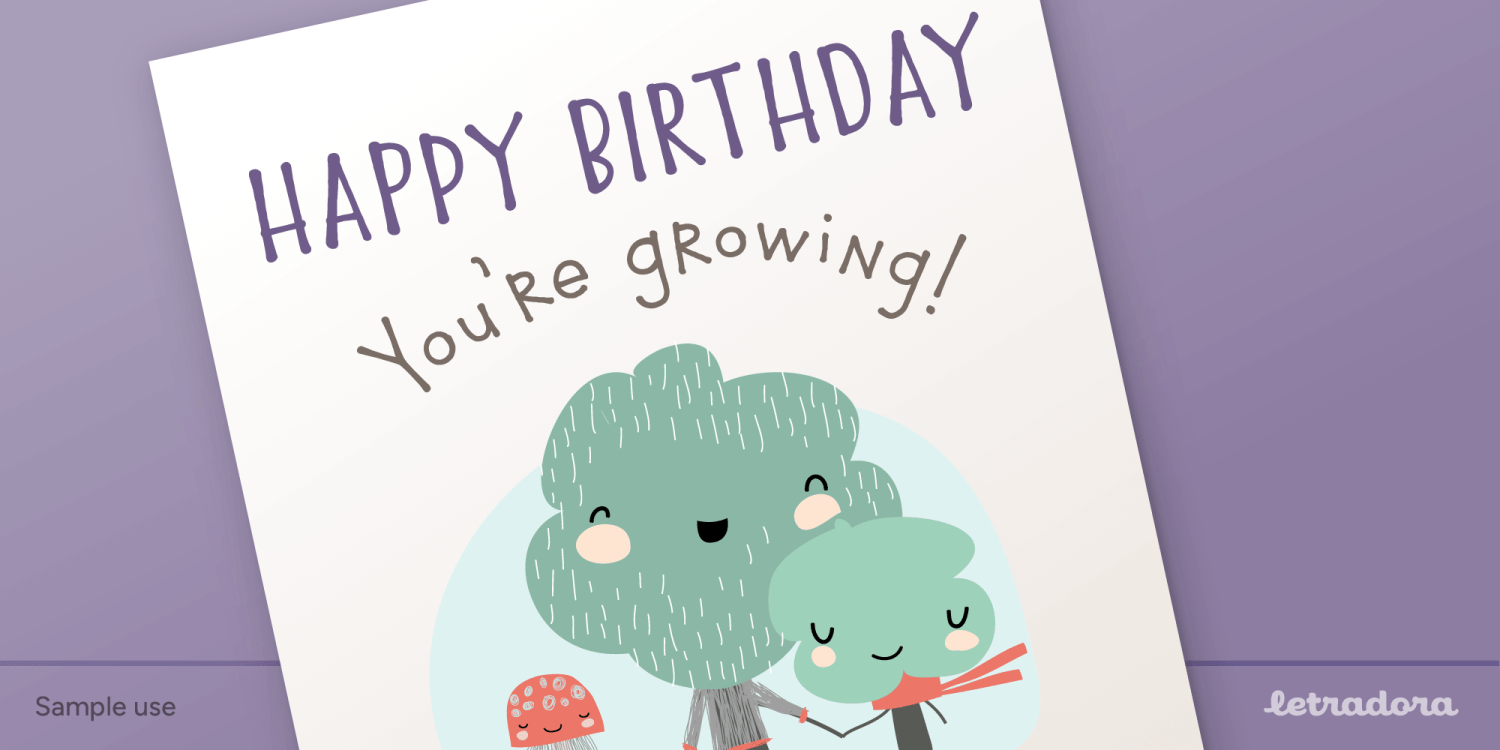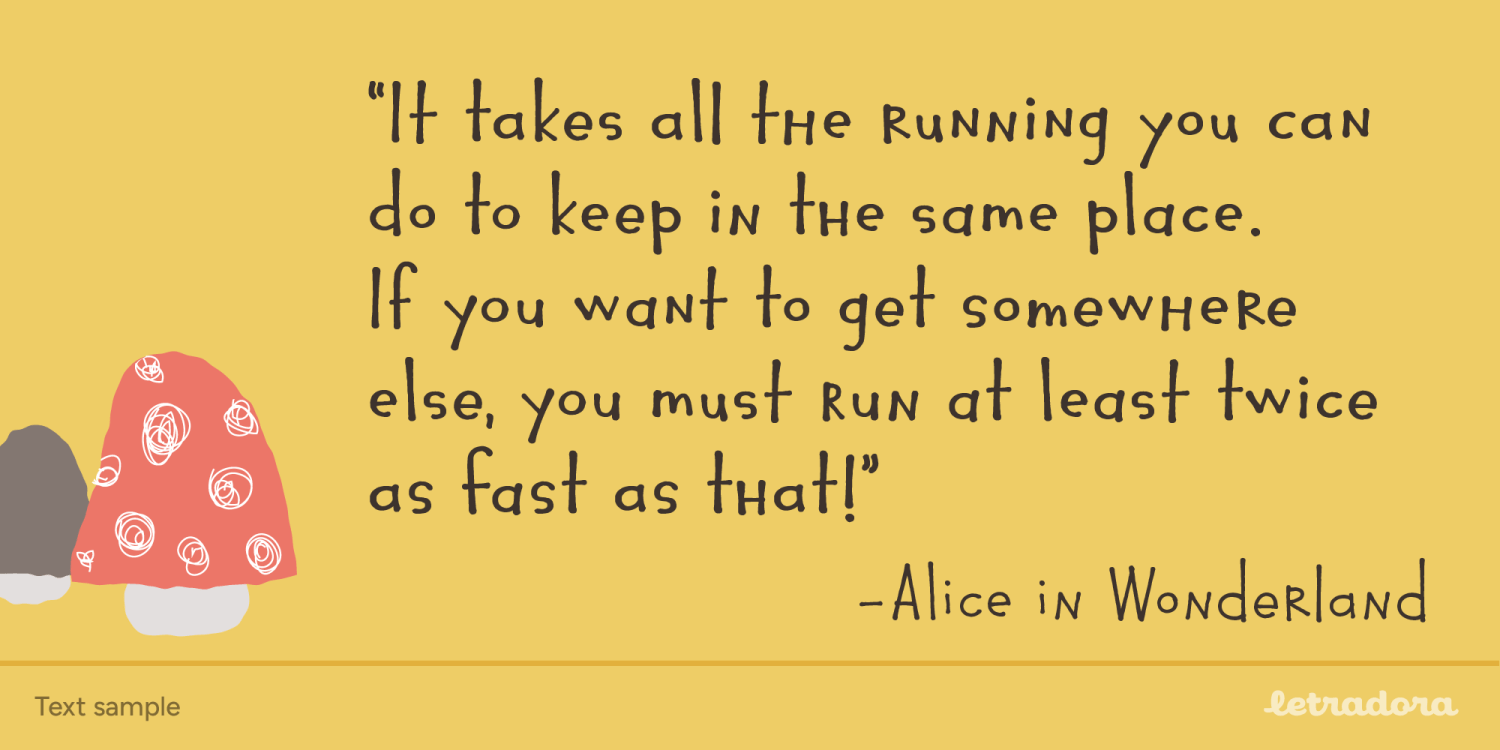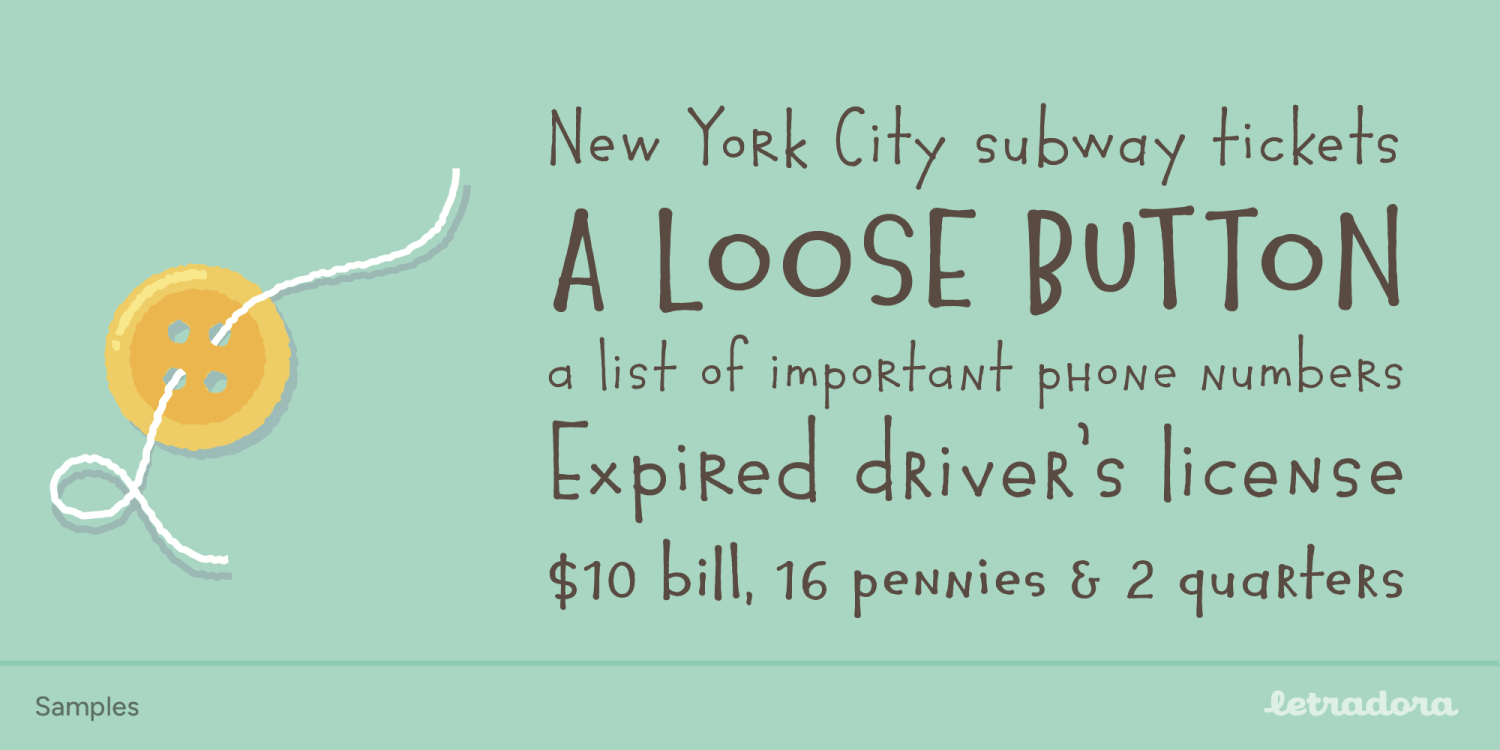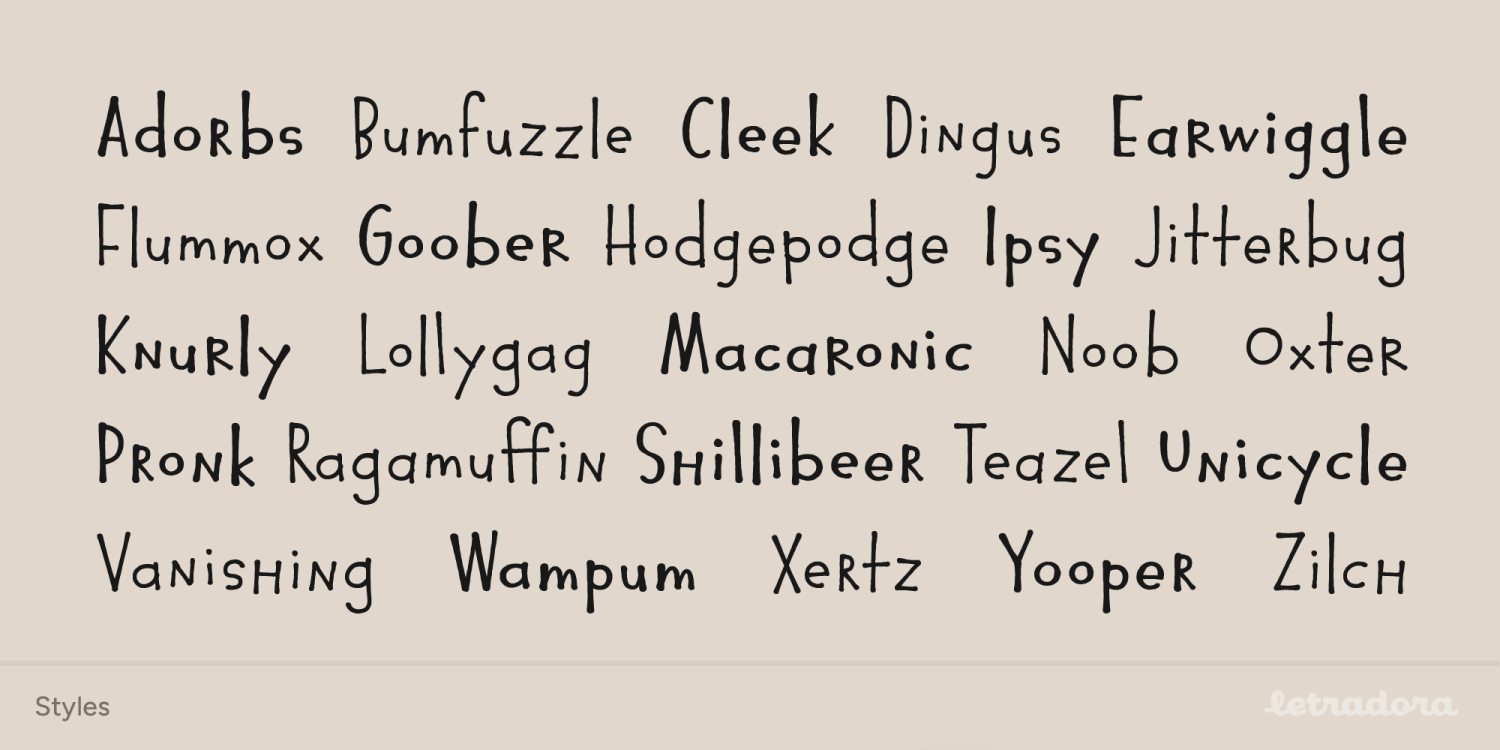
Inspired by illustration lettering, Pocket has a contemporary, quirky feel. Its combination of narrow and round forms give it a humorous feel.It has support for most western and central European languages, and has alternates for most letterforms, allowing…